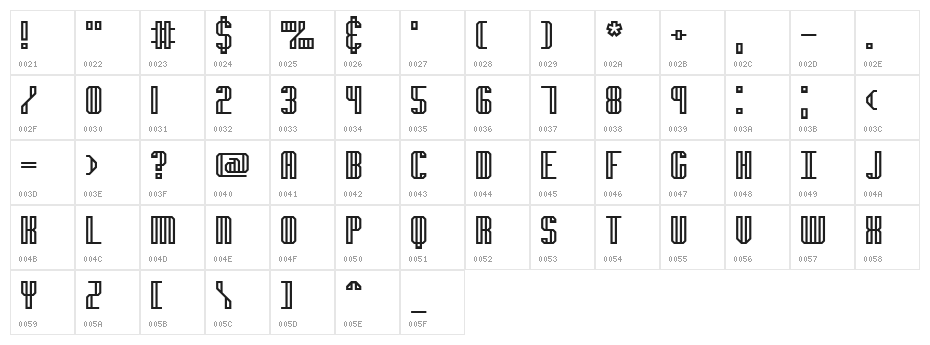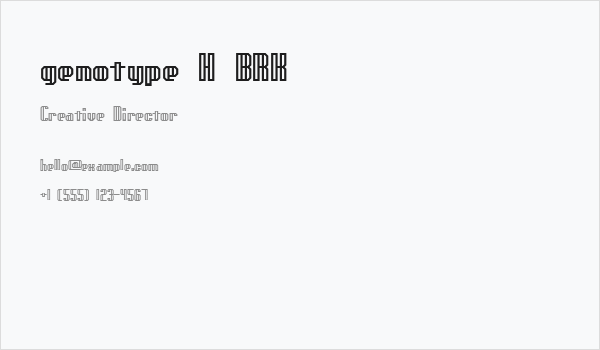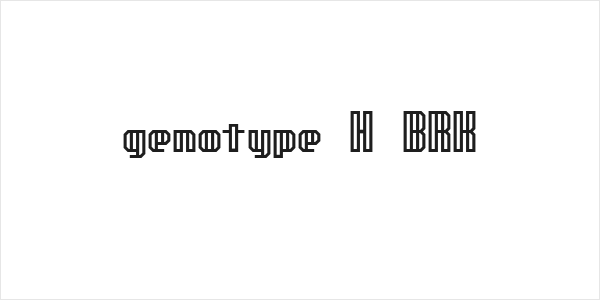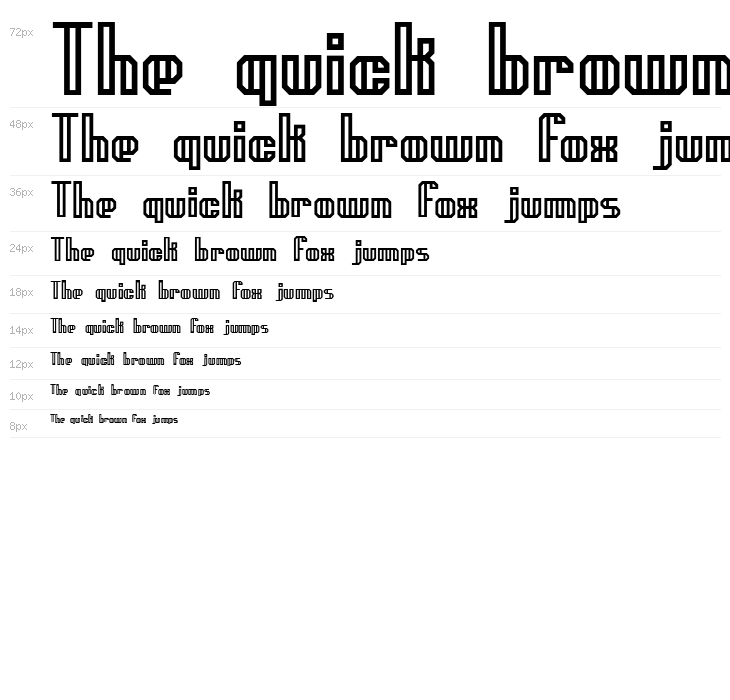
genotype H BRK Font
genotype H BRK Description
This font features a bold and geometric design with a distinctively modern and industrial feel. The characters are constructed with thick, straight lines and sharp angles, creating a sense of strength and stability. The uppercase letters are particularly striking, with a uniform height and width that gives them a block-like appearance. The lowercase letters maintain this geometric style but with slightly more variation in form, adding a touch of uniqueness to each character. The numerals and special characters follow the same design principles, ensuring consistency across the entire typeface. This font's boldness and structure make it ideal for impactful headlines and titles.
| Proposed Projects | Ideal for branding, posters, and headlines where a strong, modern look is desired. |